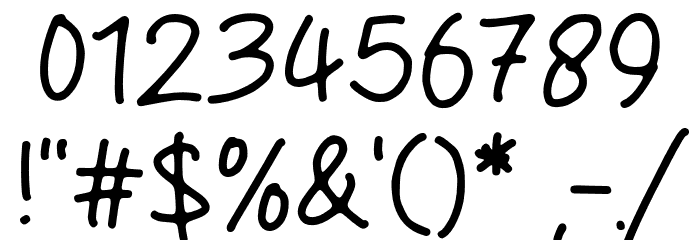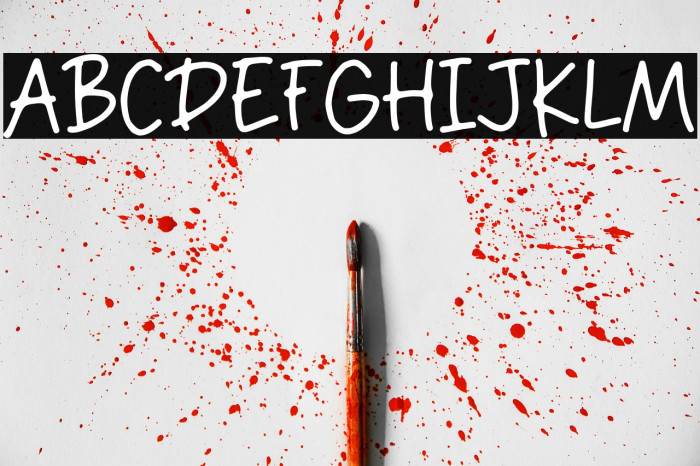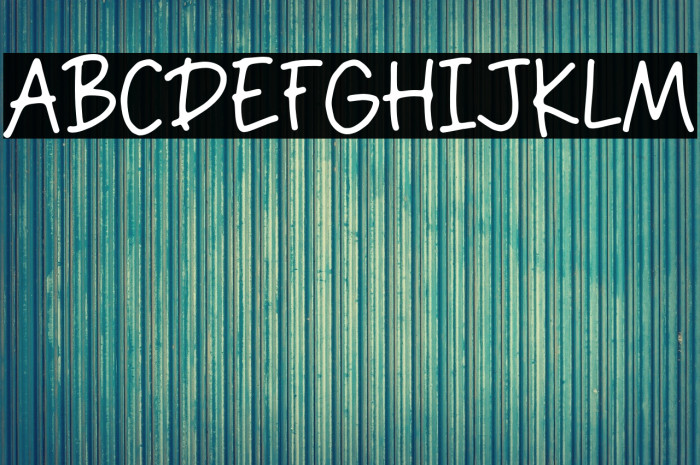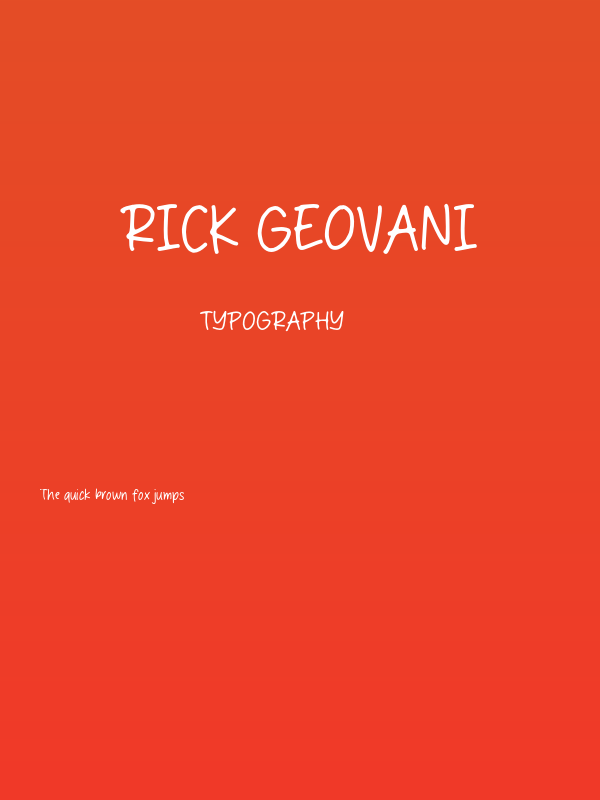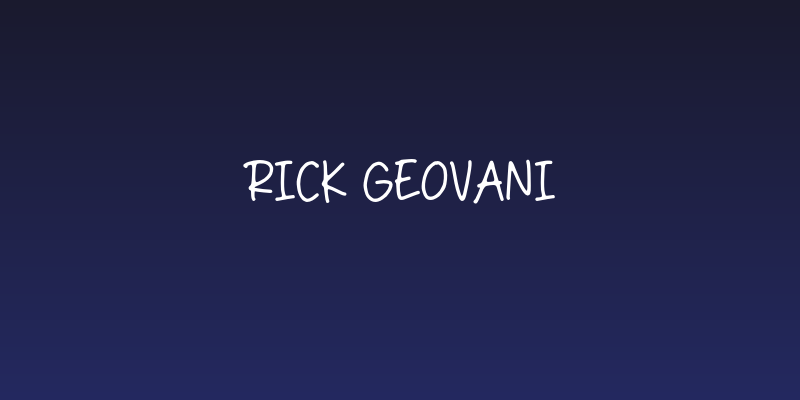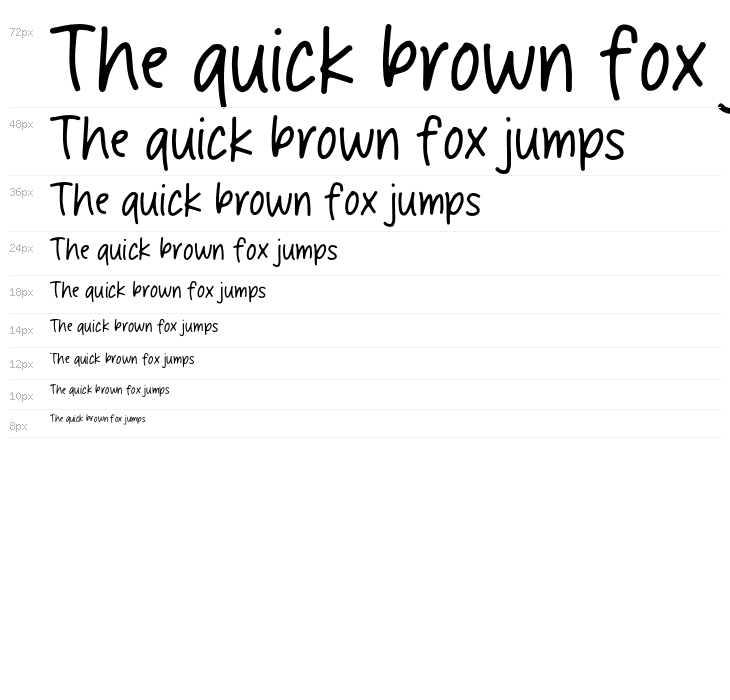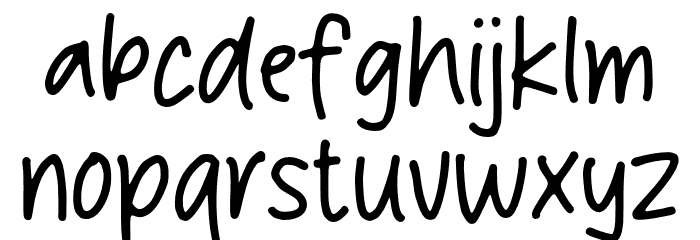
Rick Geovani Font
Rick Geovani Description
This font features a playful and casual handwritten style, characterized by its smooth curves and slightly irregular letterforms. The uppercase and lowercase letters maintain a consistent flow, giving it a friendly and approachable appearance. The numerals and special characters are crafted to match the overall informal aesthetic, making it suitable for projects that require a personal touch. The strokes are moderately thick, providing good readability while retaining a relaxed feel.
| Use Case | Logos, Invitations, Greeting Cards |
| Proposed Projects | Ideal for greeting cards, personal invitations, children's books, and informal branding projects. |